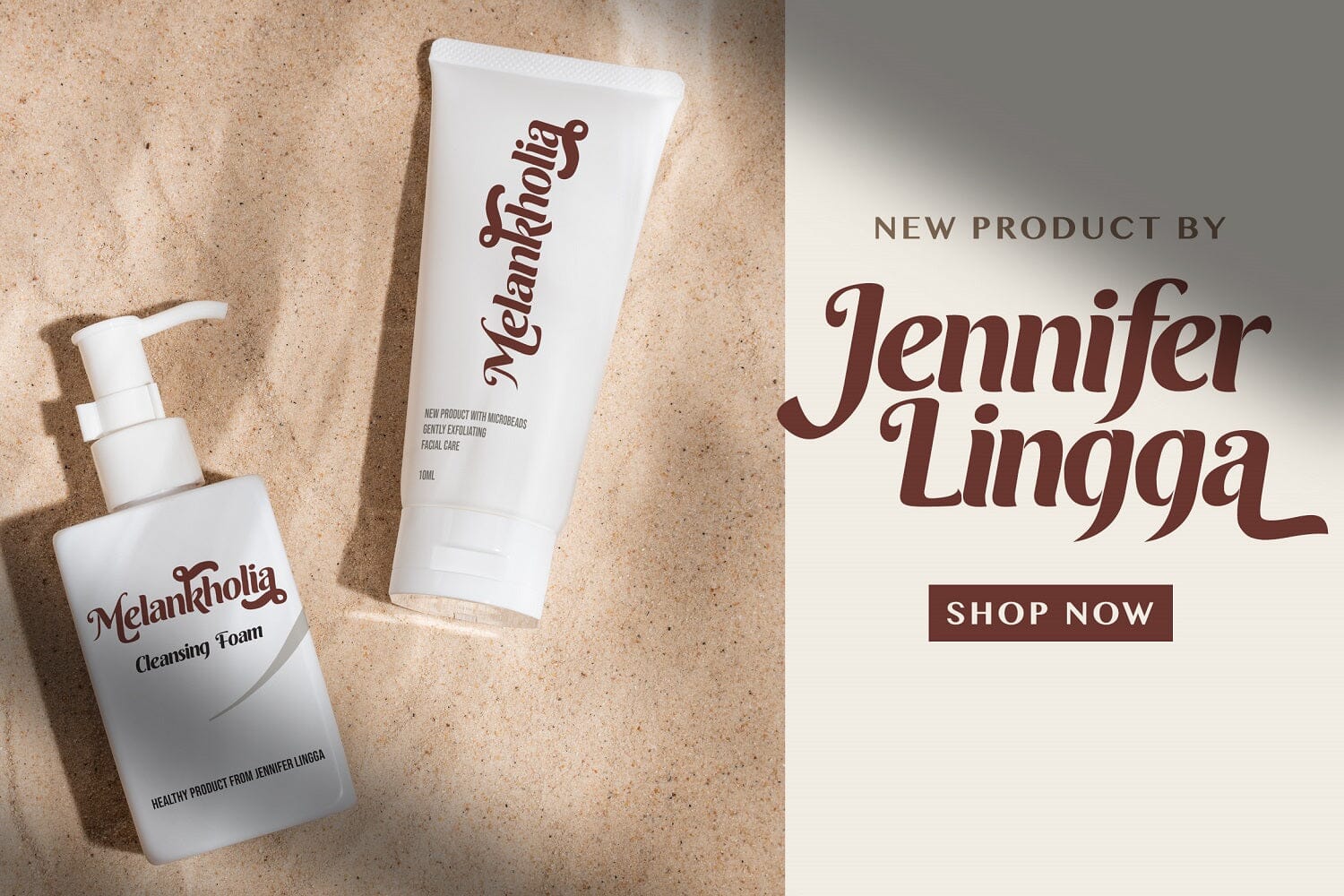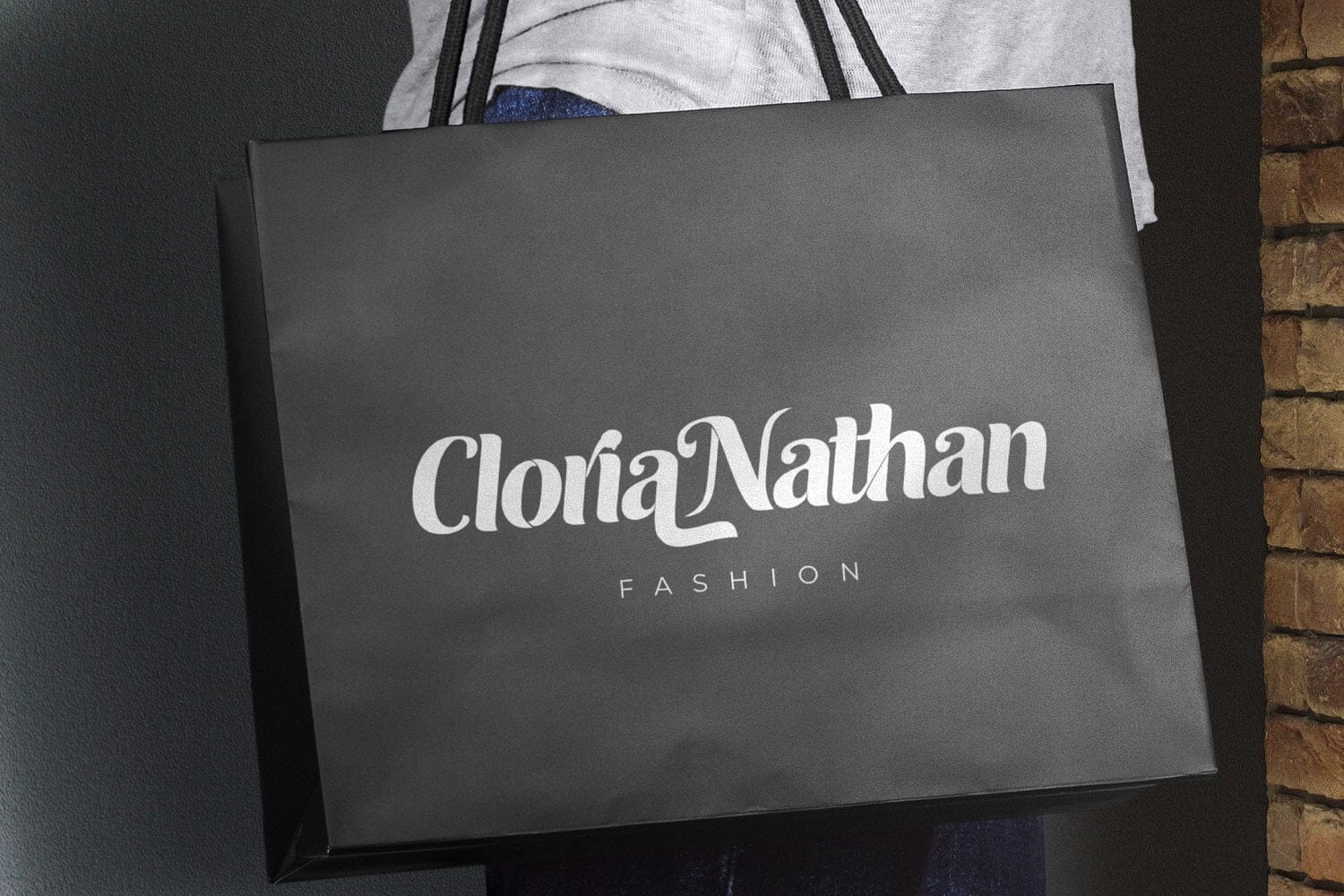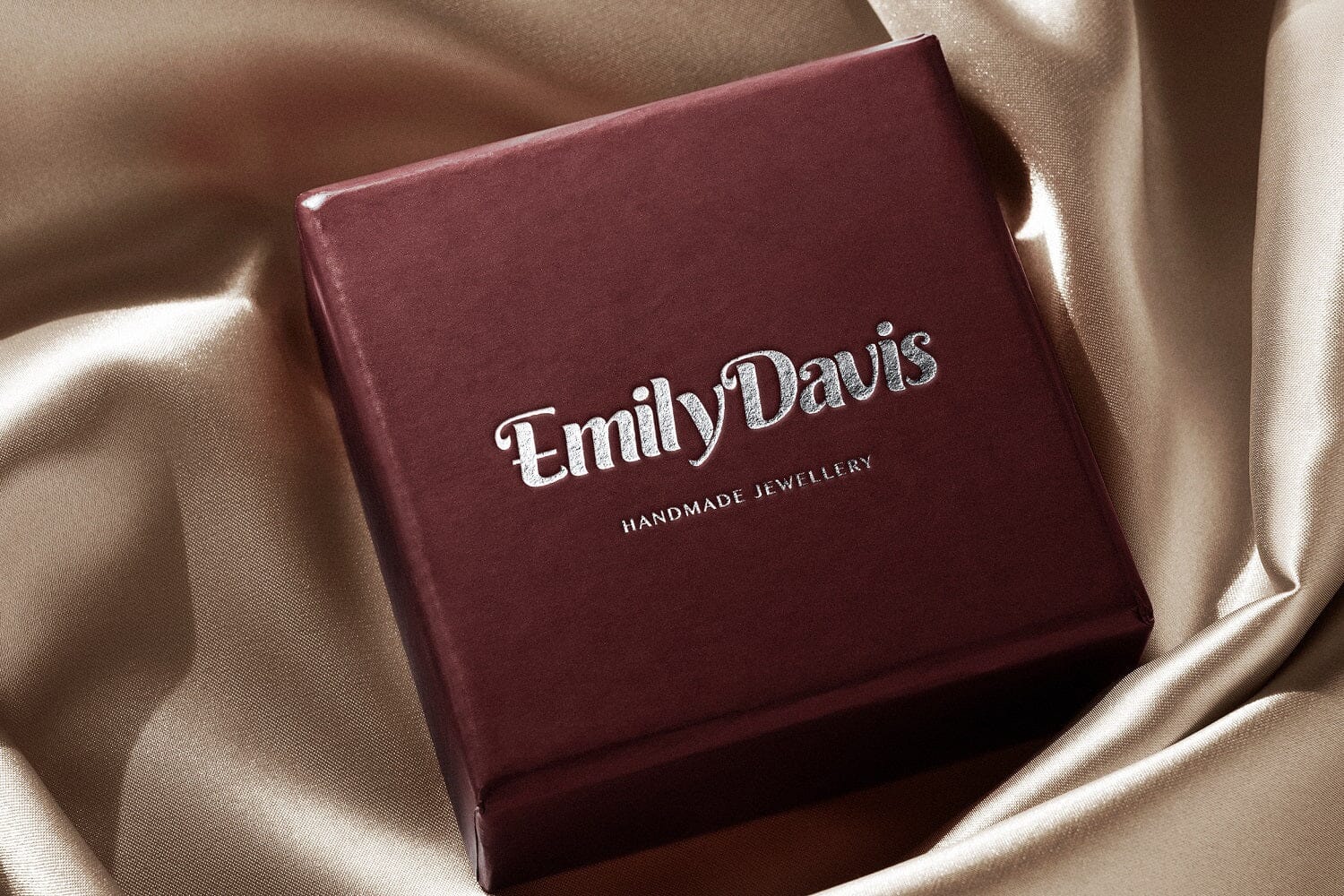
Roshinta - Decorative Display Font
Introducing Roshinta - Decorative Display Font
Roshinta is a playful display sans serif font with elegant style. Add this decorative display font to each of your creative ideas and notice how it makes them stand out. Fall in love with its dynamic charm, and make this fancy display part of your craft library now. Â
Introducing Roshinta - Decorative Display Font
Roshinta is a playful display sans serif font with elegant style. Add this decorative display font to each of your creative ideas and notice how it makes them stand out. Fall in love with its dynamic charm, and make this fancy display part of your craft library now. Â